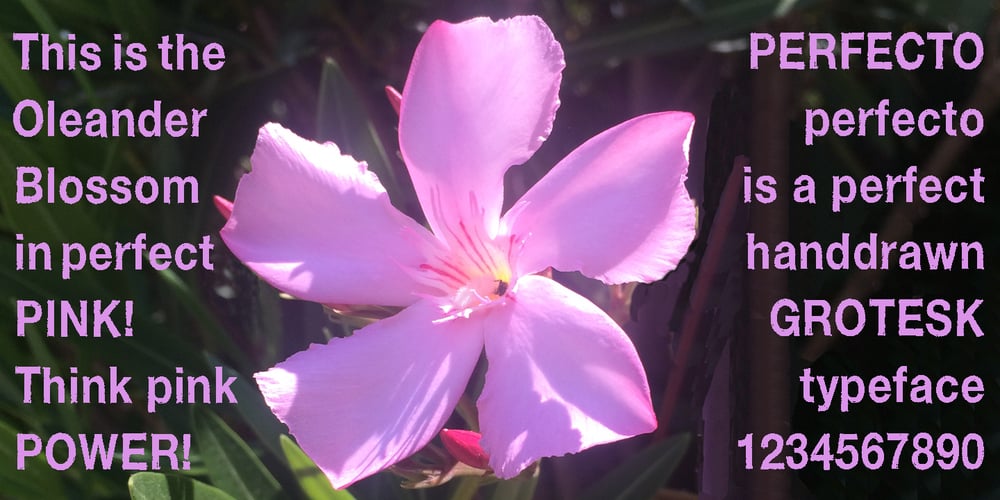
Perfecto Font Family was designed by Gert Wiescher and published by Autographis. Perfecto contains 1 styles and family package options. Perfecto is the perfect font drawn imperfectly by hand. At small sizes the imperfections disappear; at large sizes, the hand-drawn touch becomes dominant.